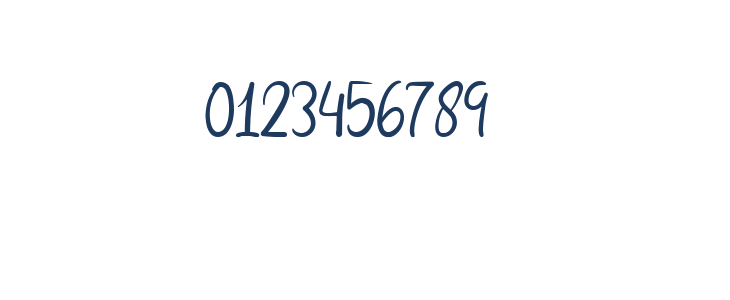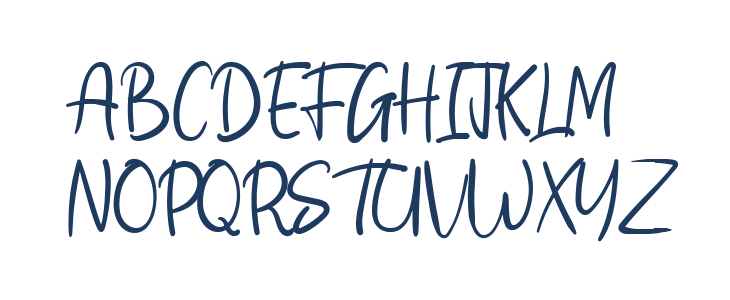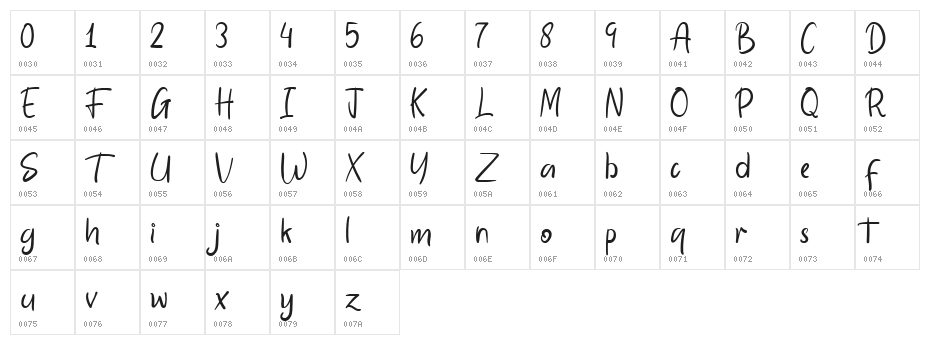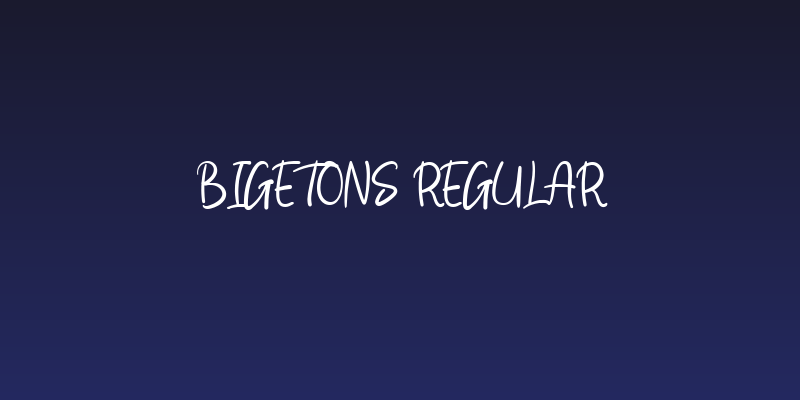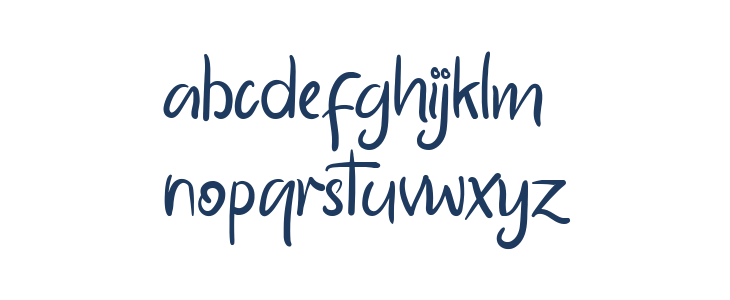
Bigetons Regular Font
Bigetons Regular Description
A playful, handwritten script with tall, narrow letterforms and a casual, energetic flow. The strokes are consistent in thickness, and the characters have a slightly irregular, organic feel, enhancing the informal and approachable style.
| Overall Style | Playful, Casual, Modern |
| Use Case | Headlines, Quotes, Informal branding, Social media posts |
| Proposed Projects | Greeting cards, invitations, posters, branding for creative businesses, social media graphics. |